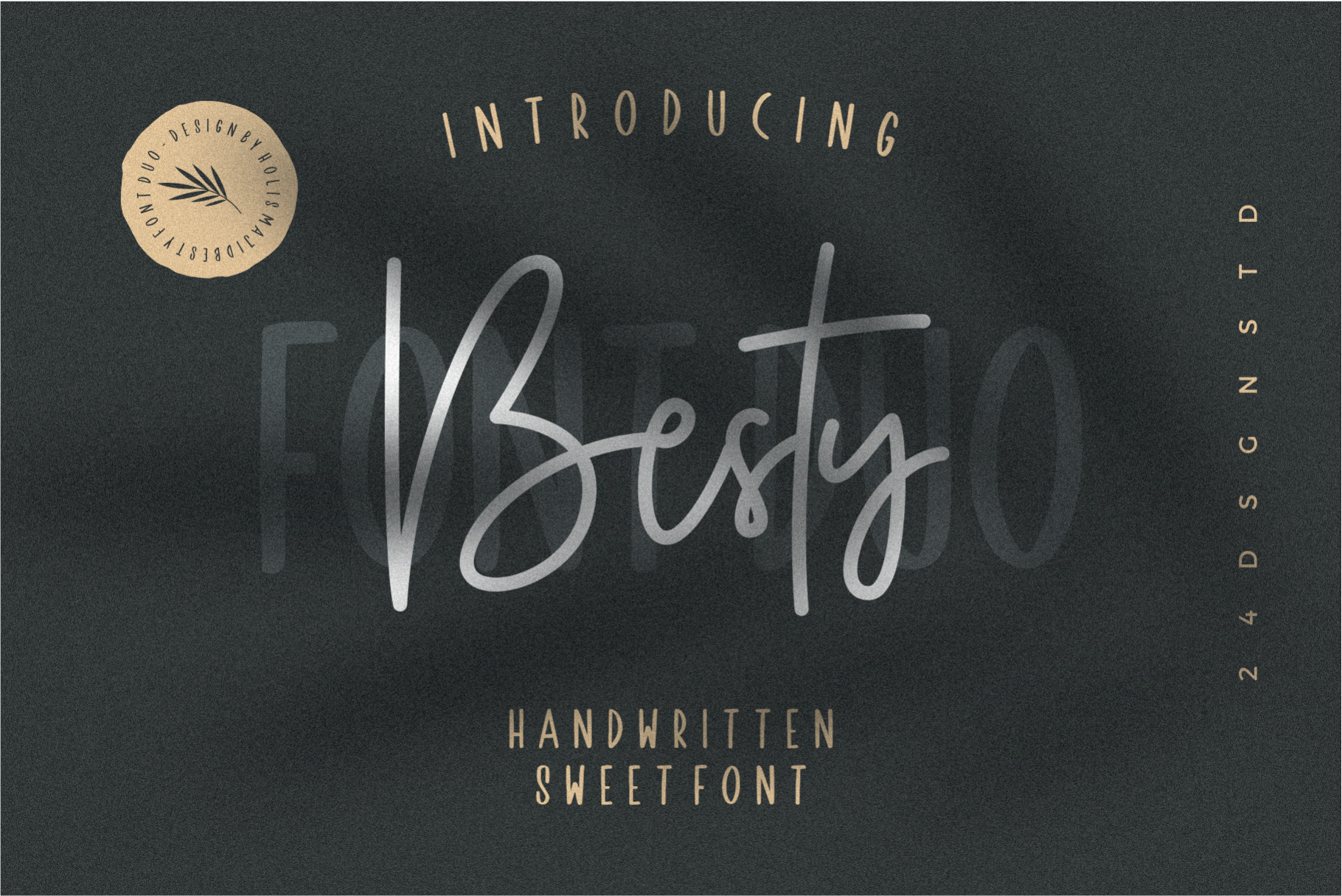
Besty Font Duo
Besty is a duo font with script and handwriting style, this font is suitable for logos, cover titles, posters, invitations and other design products.